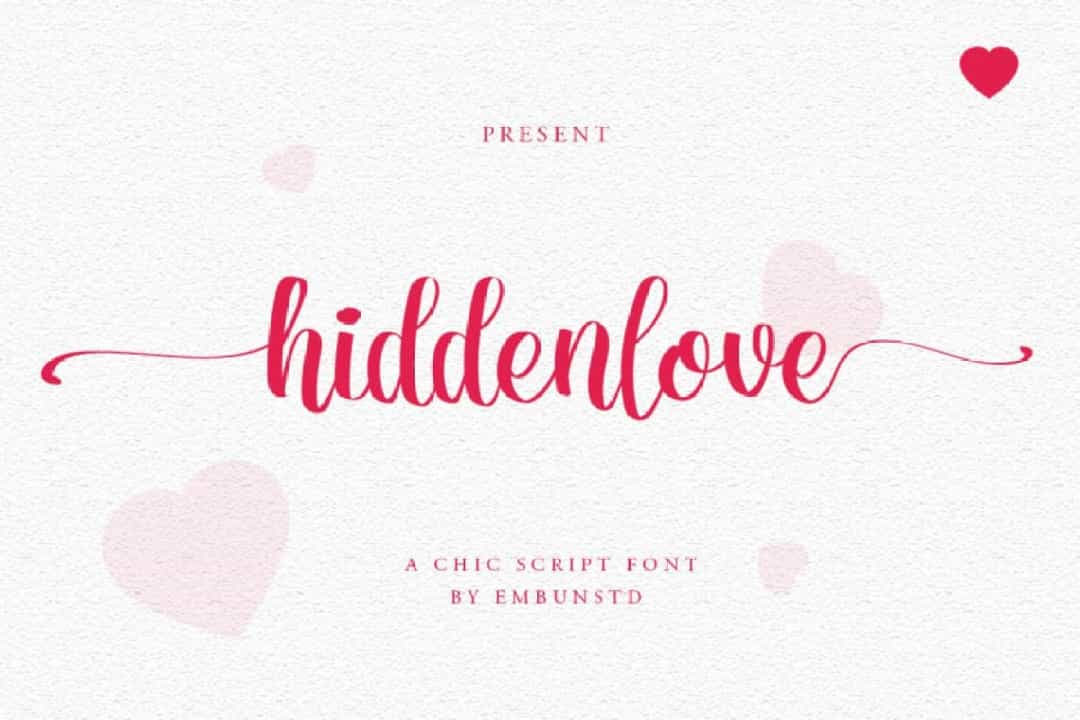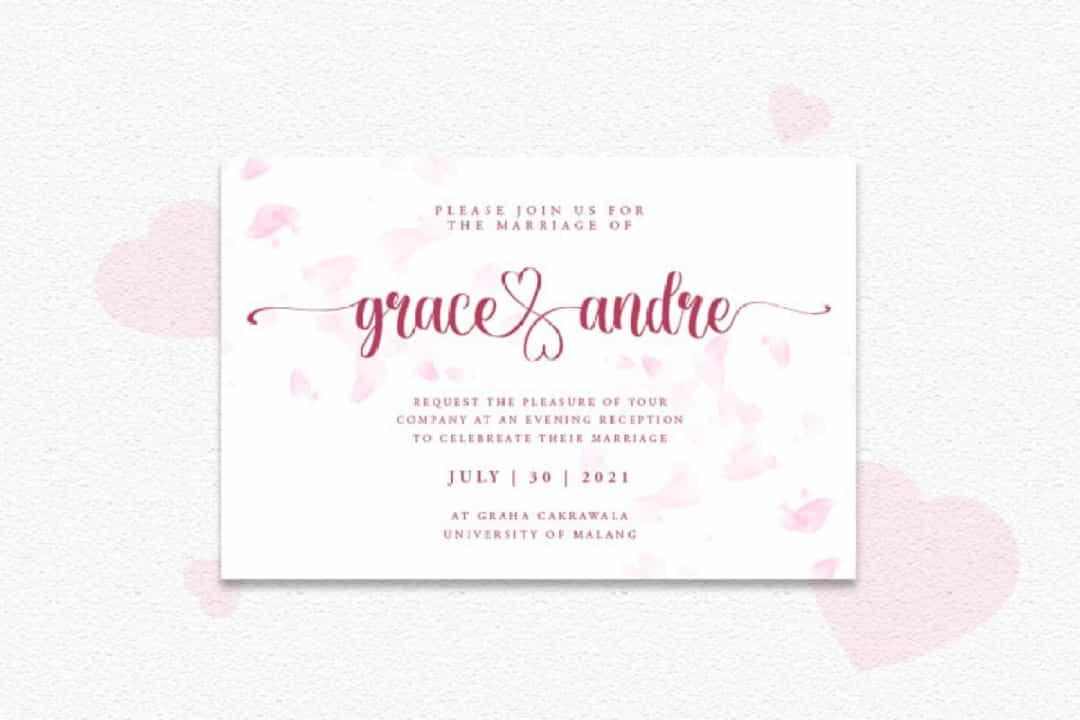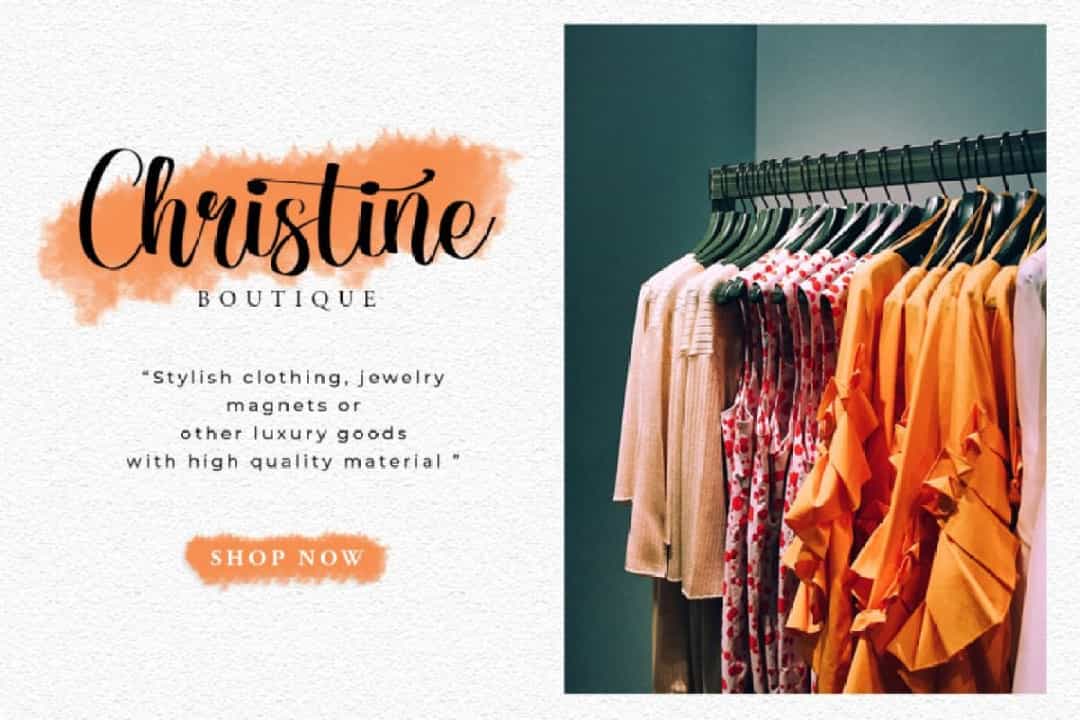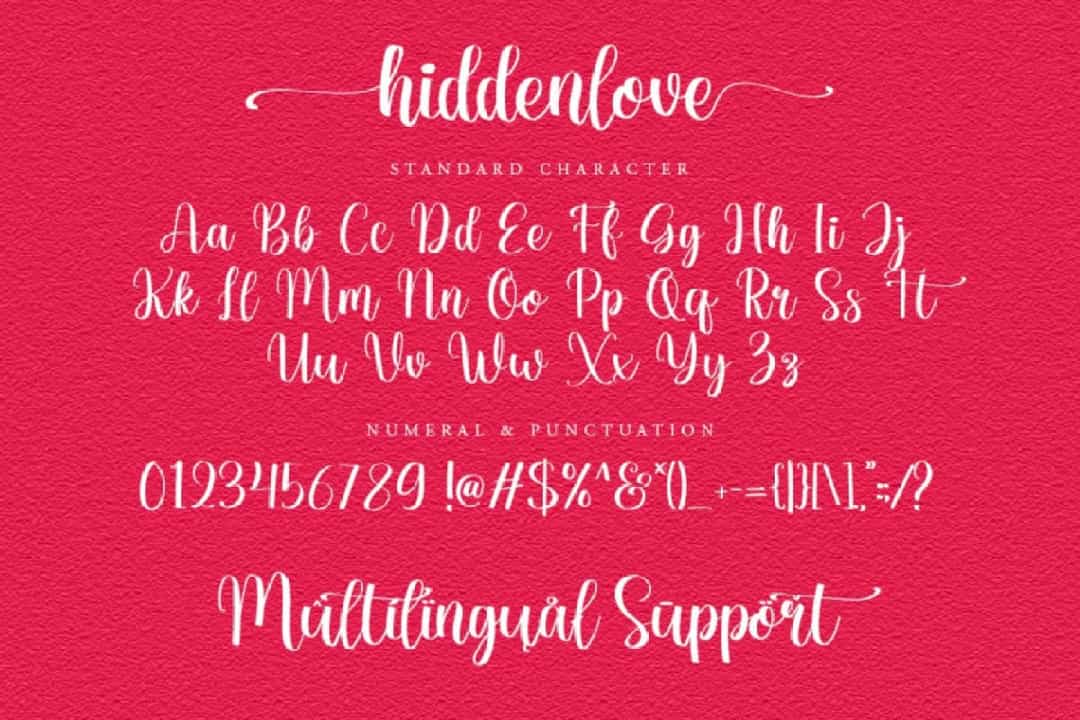
Hiddenlove font is a display typeface, it is a modern wedding typeface that is classified as calligraphy. The font is rather feminine, elegant, chaotic, and modern. The Hiddenlove is suitable for use in weddings, birthday cards, logo designing, wedding invitations and cards, stylish logo packaging, posters for websites, stationery or any other project that has to do with love and elegance.